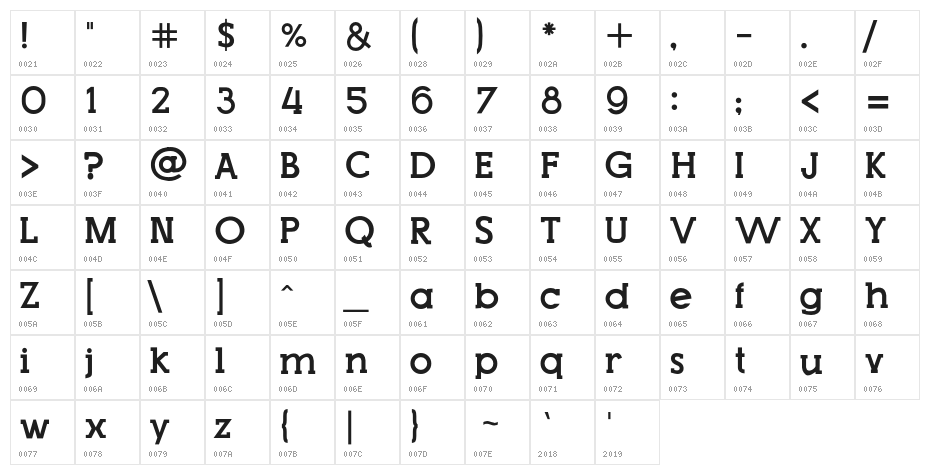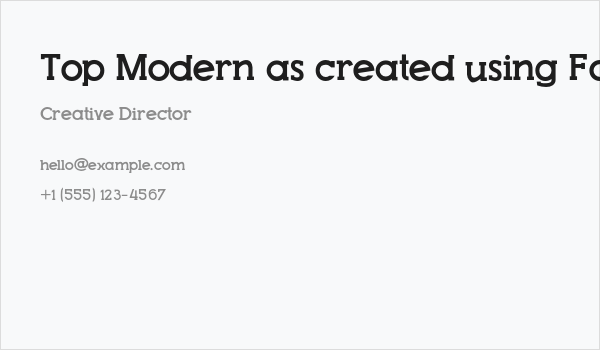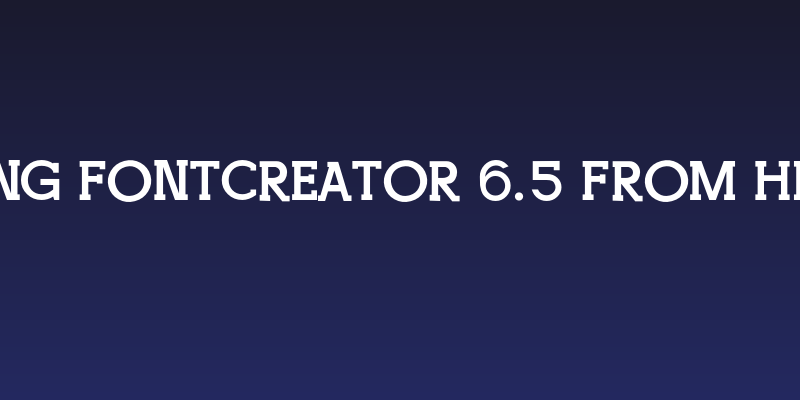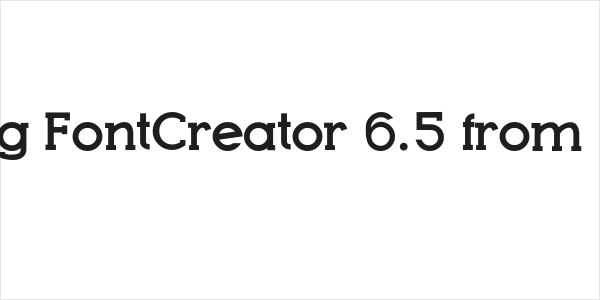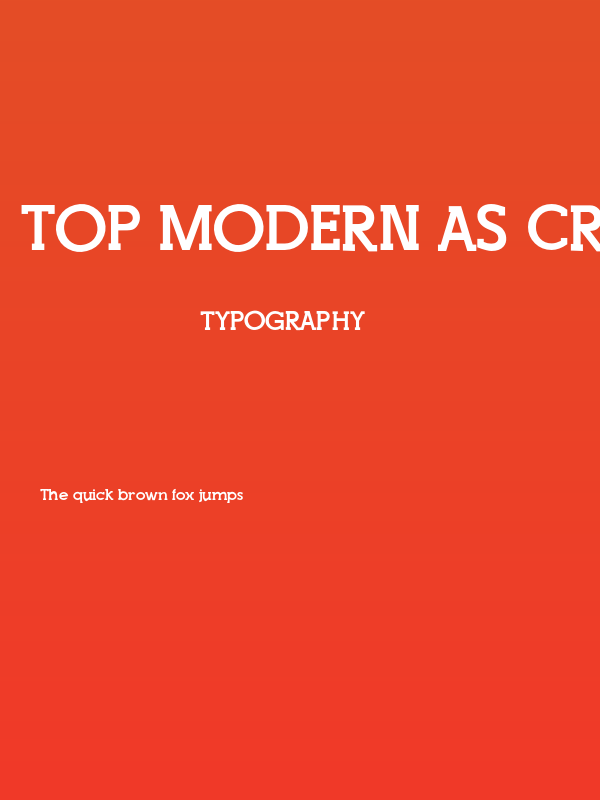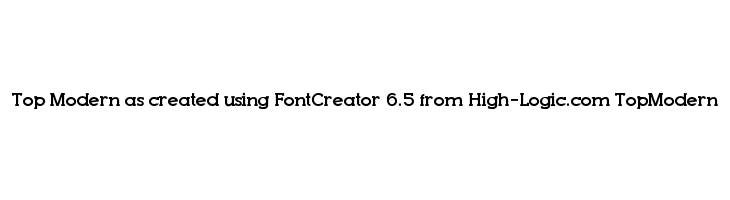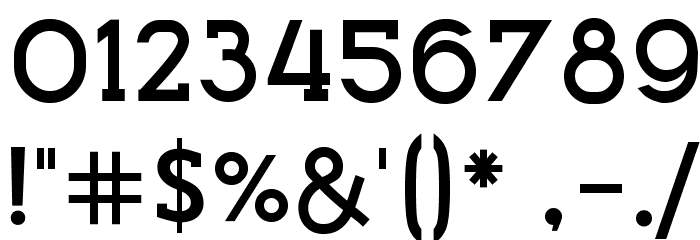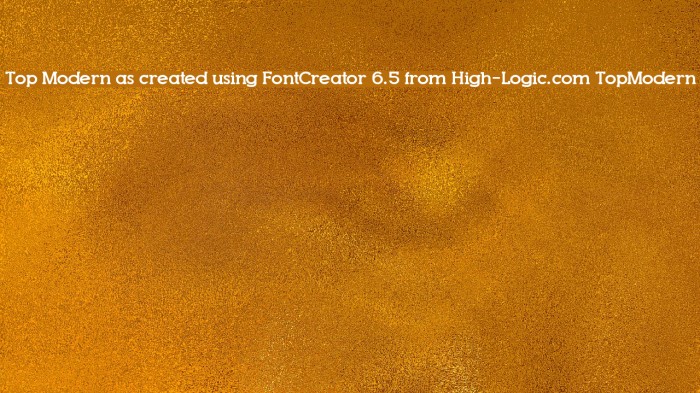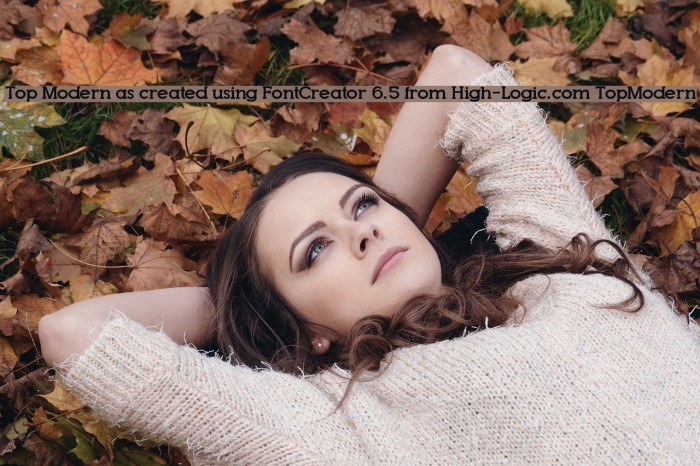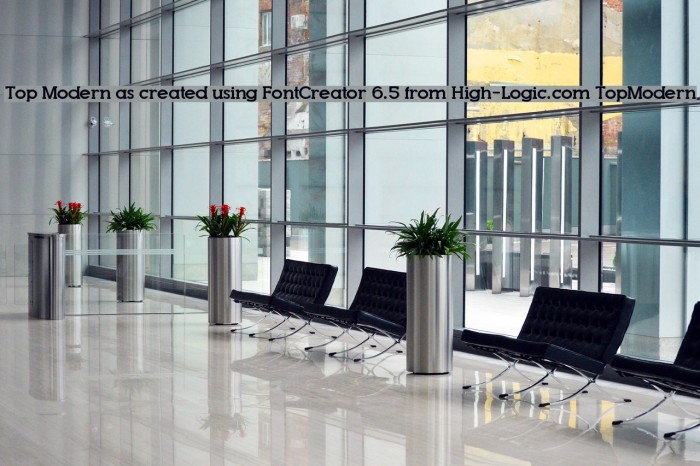
Top Modern as created using FontCreator 6.5 from High-Logic.com TopModern Font
Top Modern as created using FontCreator 6.5 from High-Logic.com TopModern Description
This font features a bold and modern aesthetic with clean, geometric lines and a strong presence. The uppercase letters are uniform in height, creating a cohesive look, while the lowercase letters maintain a consistent baseline, enhancing readability. The numerals are distinct and well-proportioned, contributing to the font's overall balance. Special characters are designed with the same attention to detail, ensuring they integrate seamlessly with the rest of the typeface. The font's boldness and clarity make it suitable for various applications, from digital to print media.
| Use Case | Headlines, Logos, Branding |
| Proposed Projects | Ideal for branding, advertising, headlines, and digital media. |